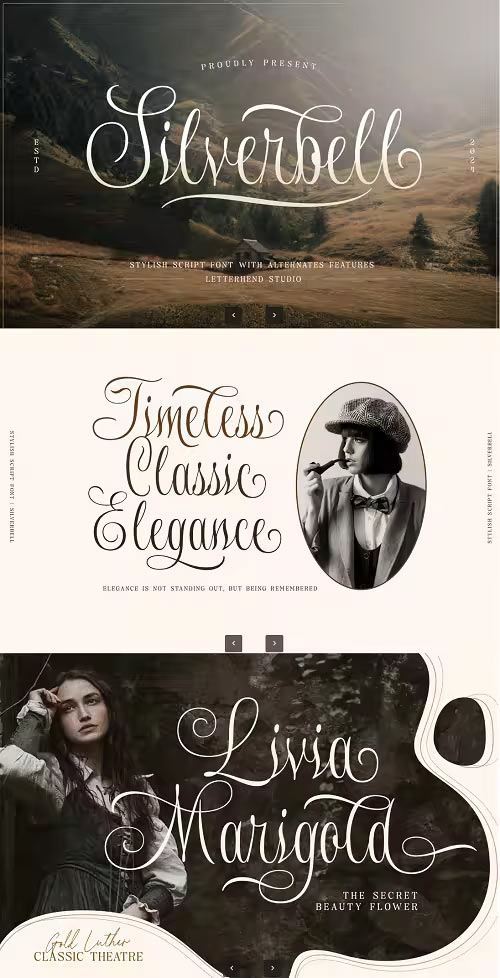
Silverbell Font 29W6EJZ
Silverbell is a timeless script font featuring stylish swash, promises to elevate your designs with an air of classic beauty and elegance. Whether you're crafting formal documents, designing stunning invitations, creating alluring branding materials, or fashioning elegant packaging, Sparky Dream effortlessly enhances your work with its timeless charm and sophistication.